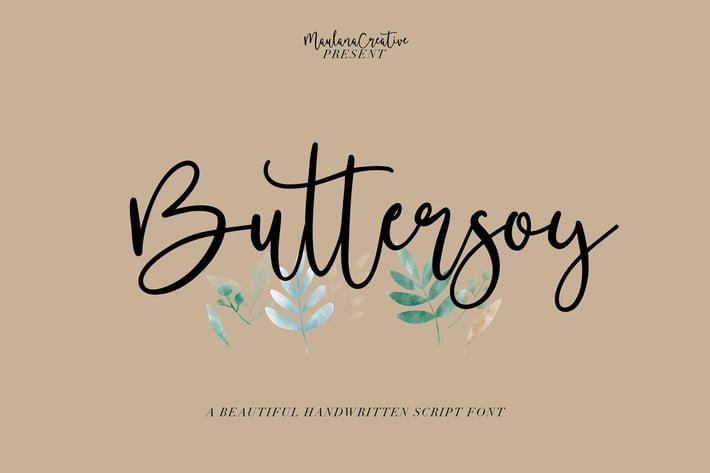
Buttersoy Beautiful Handwritten Script Font
Give your designs an authentic handcrafted feel. Buttersoy Beautiful Handwritten Script Font is perfectly suited to stationery, logos and much more.